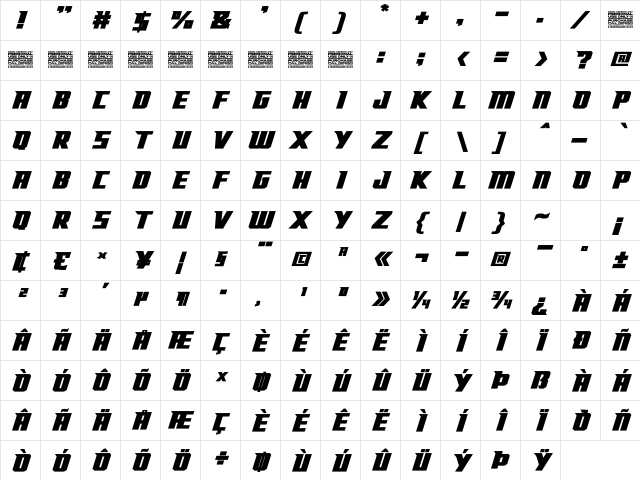
Racing Foner Personal Use Only Bold Free Font
Racing Foner Personal Use Only Bold
Foundry: Multype Studio
Designer: Mulia Yanto
Design Context for Racing Foner Personal Use Only
Racing Foner Personal Use Only is a composed and adaptable typeface that performs quietly and consistently across a wide range of design contexts. Its bold stroke weight gives it real presence on the page.
Who designed the Racing Foner Personal Use Only Bold font?
This font was published by Multype Studio. Check the technical specs section for copyright and designer details.